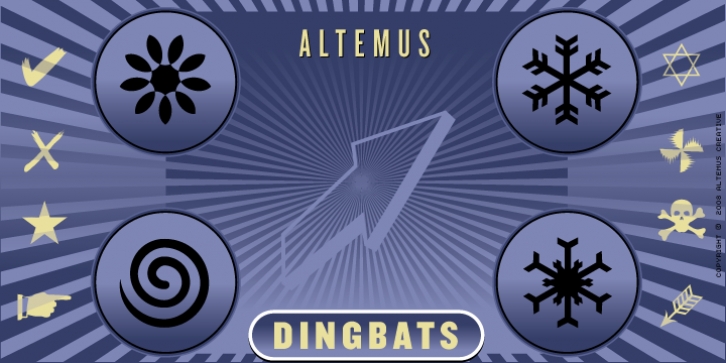
Altemus Dingbats was designed by Robert Altemus and published by Altemus Creative. Altemus Dingbats contains 1 style.
A collection of 197 graphic, pointer, numbering, leaf sun and arrow illustrative and printer cut designs.